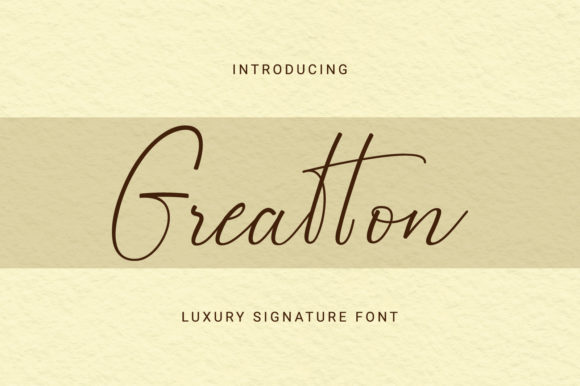
Introducing Greatton Font - A Stroke of Elegance and Distinction
Delve into the world of elegance and sophistication with Greatton Font, a captivating script font family designed to leave a lasting impression. Crafted with meticulous care by the talented JprintStudio, Greatton embodies the essence of refined artistry. Its light handwritten style exudes a unique charm that instantly adds a touch of luxury and grace to any design project.
Greatton Font is more than just a collection of characters; it's an artistic expression that elevates your creations to new heights. Whether you're a seasoned designer or just starting your creative journey, Greatton Font will become your trusted companion, transforming your ideas into stunning masterpieces.
With its effortless flow and natural feel, Greatton Font is the perfect choice for adding a personal touch to your projects. Its exquisite design adds a sense of authenticity and individuality to your work, making it stand out from the crowd. From elegant invitations and wedding stationery to eye-catching logos and branding materials, Greatton Font has the versatility to adapt to any project, adding a touch of sophistication that will leave your audience captivated.
Embrace the beauty of individuality and let Greatton Font be your creative muse. Its unique style will ignite your imagination and inspire you to create designs that truly reflect your artistic vision. Whether you're a seasoned professional or just starting out, Greatton Font is the perfect addition to your creative arsenal, ready to elevate your work to new levels of excellence.